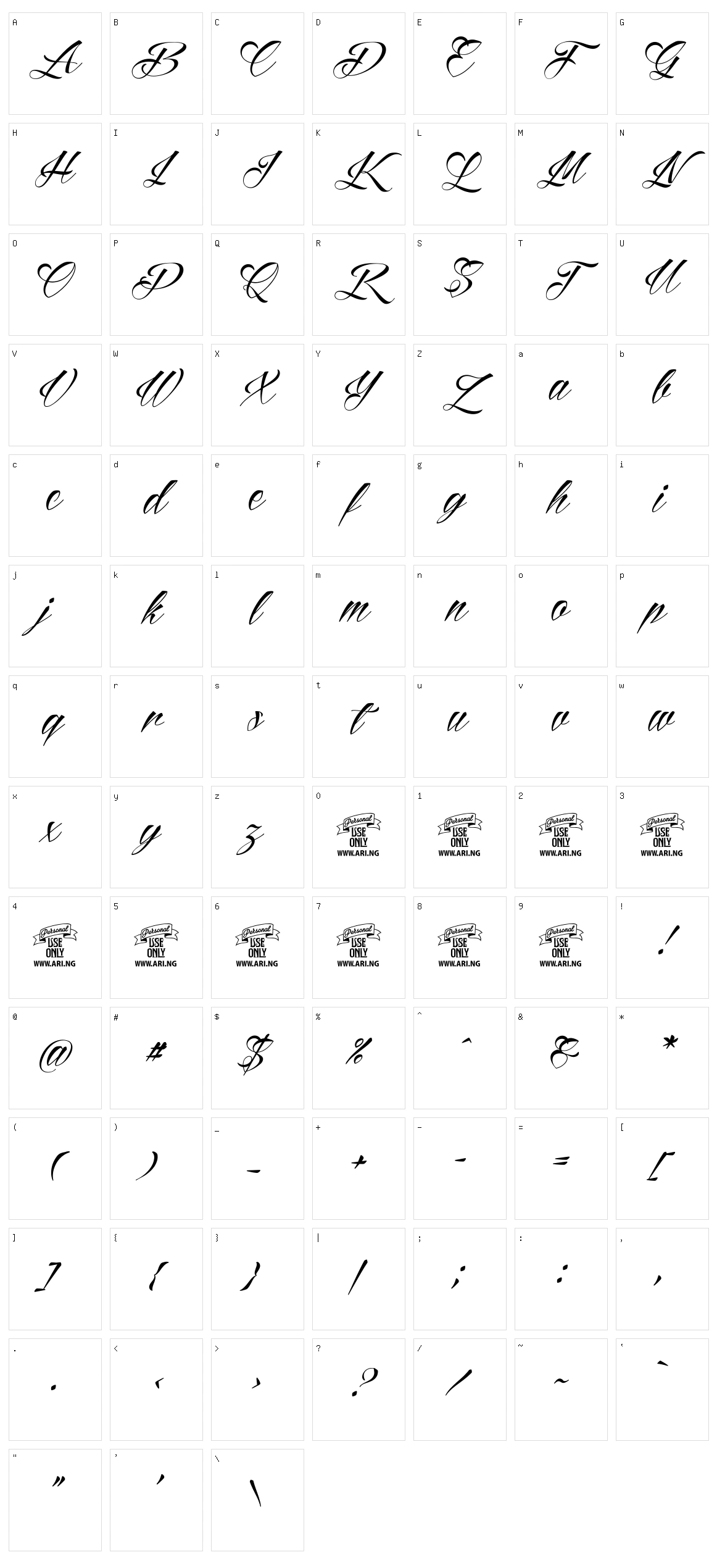
The free font Reditum is carefully designed by Mans Greback, showcasing a thoughtful balance of creativity and usability and falls under the Script font style. When you download the ZIP file, it contains only 1435.48 KB of font files, making it lightweight and quick to download. Please review the license details below to understand permitted usage and distribution rights. If license information is not available, we recommend using this font for personal projects only or contacting the author directly for commercial usage permissions.